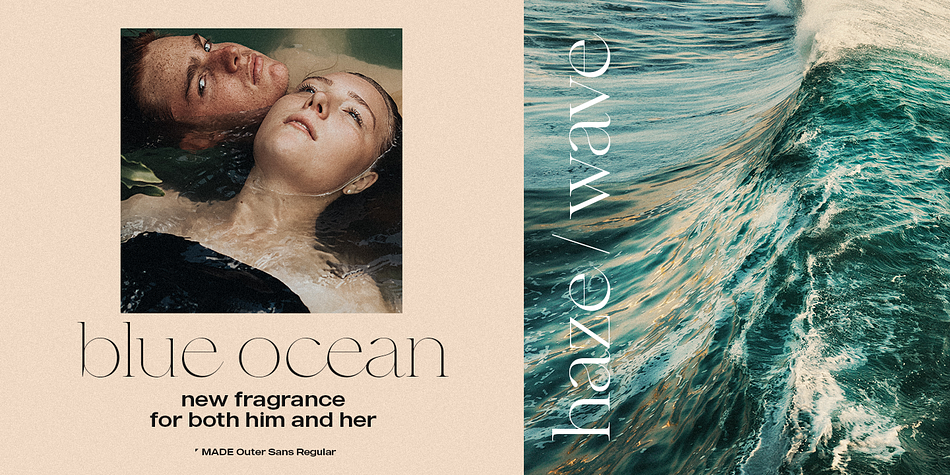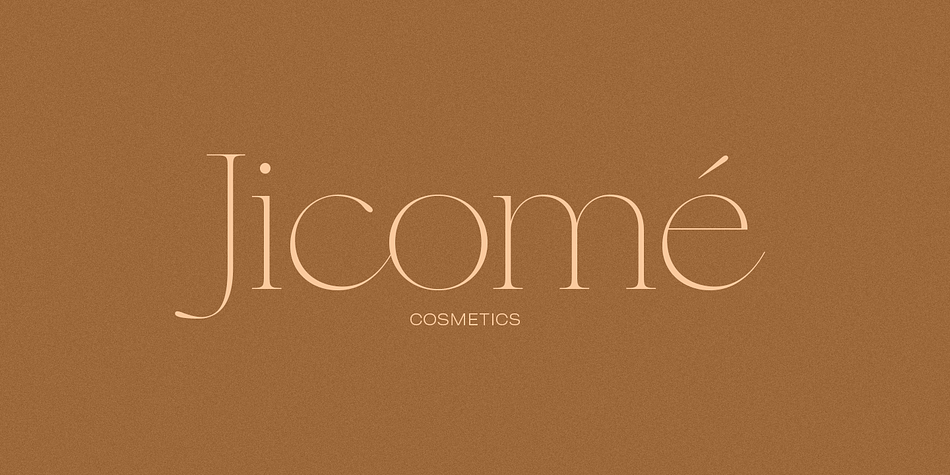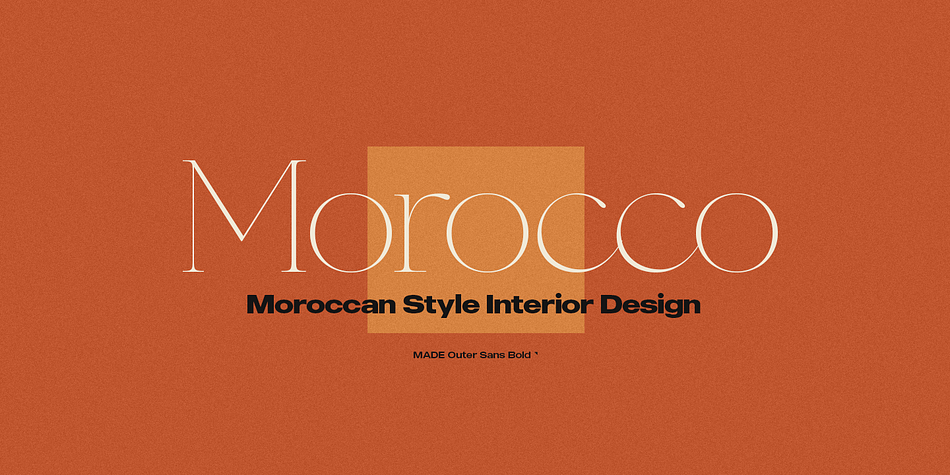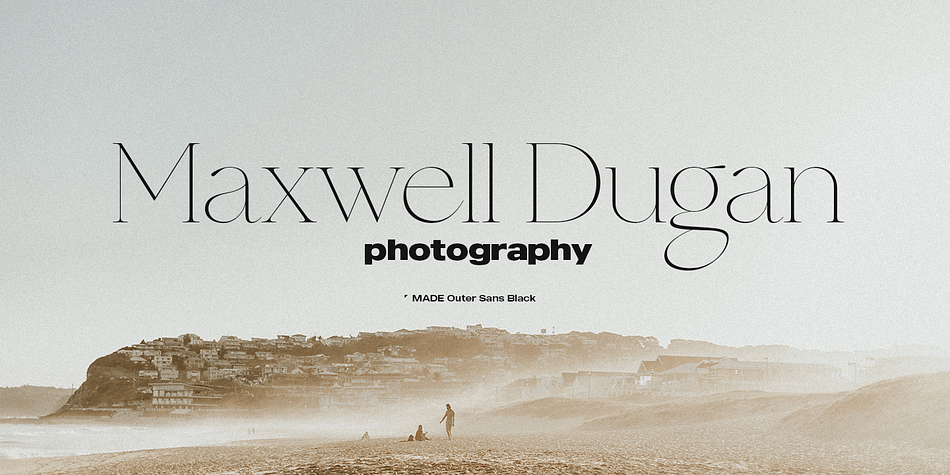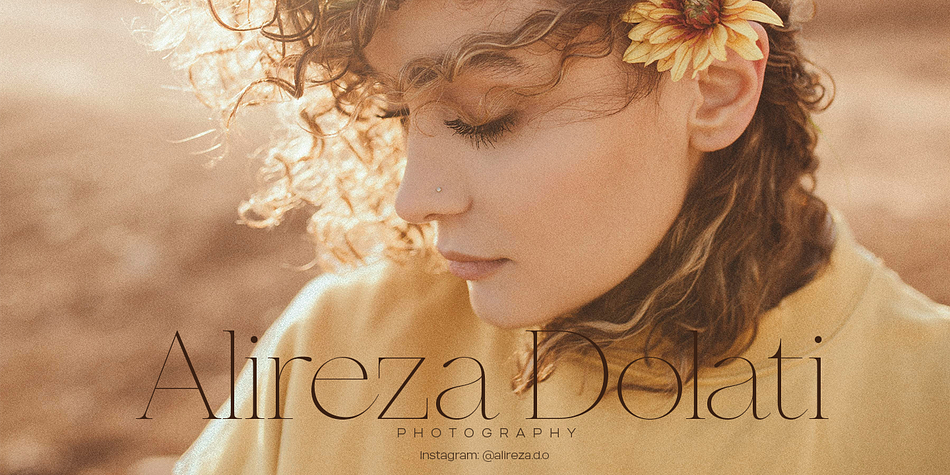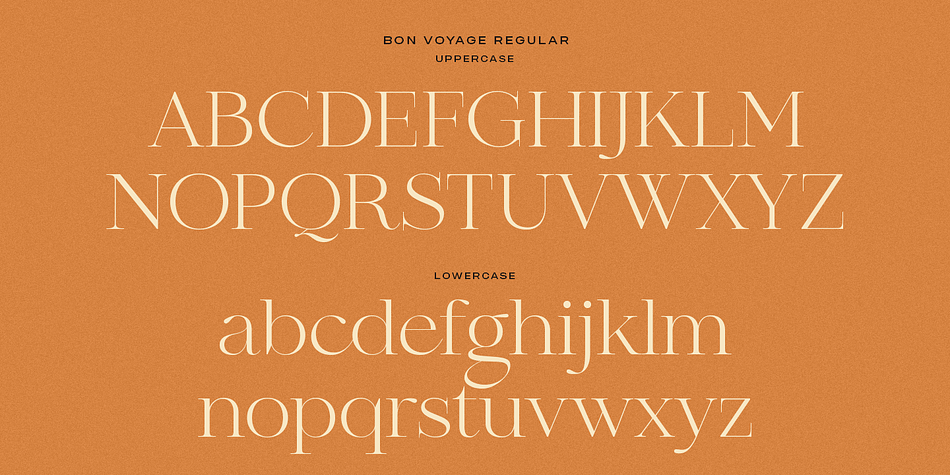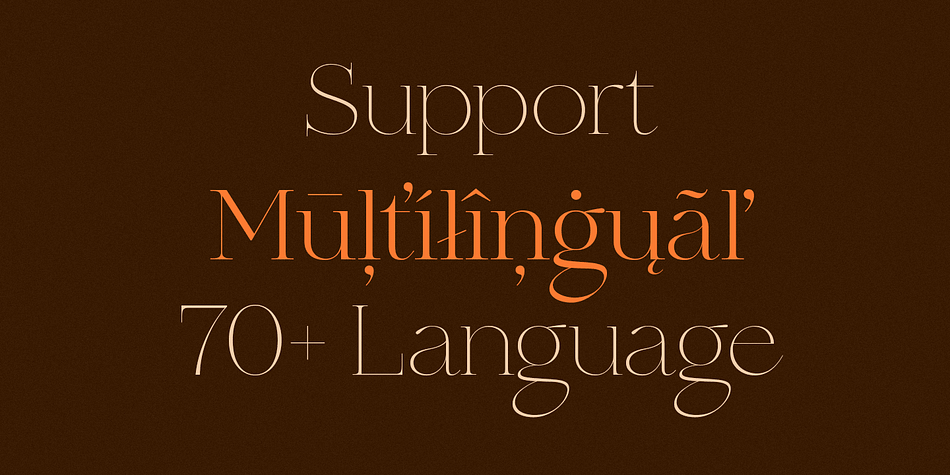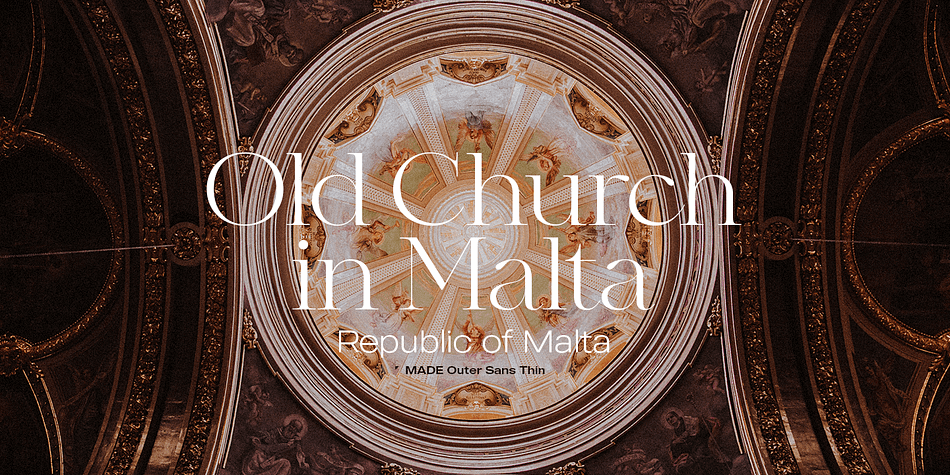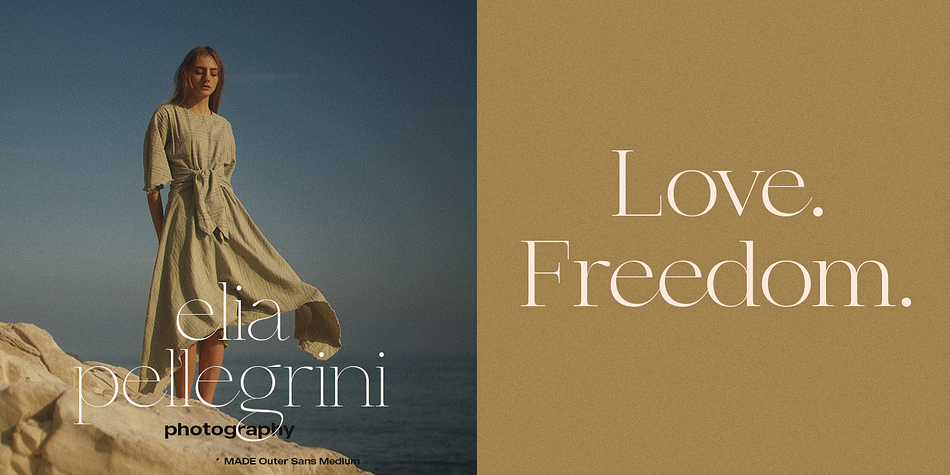
Designed by Maxim Schepin and Denis Schepin, MADE Bon Voyage is a serif font family. This typeface has two styles and was published by MadeType.
MADE Bon Voyage is a new modern calligraphic serif typeface. The Bon Voyage creates art in the headline and text. The Bon Voyage includes 2 styles: Thin and Regular.
MADE Bon Voyage will perfect for many project: fashion, magazines, logo, branding, photography, invitations, wedding invitation, quotes, blog header, poster, advertisements, postcard, book, websites, etc.